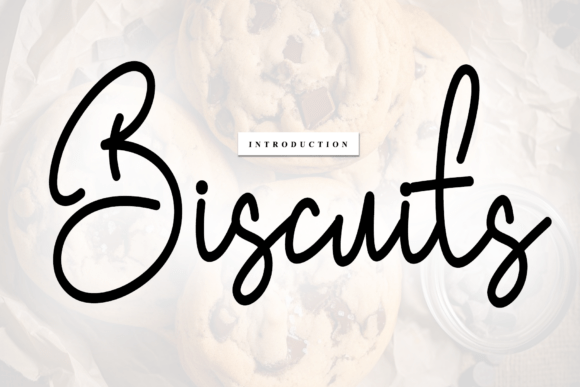
The Sweet Spot: Discovering the Charm of Biscuits Font
I still remember the design project that led me to discover the Biscuits font. I was working on a branding project for a local bakery, and I was struggling to find the perfect font that would capture the warmth and artisanal feel of their freshly baked goods. The client wanted a font that would evoke a sense of handmade craftsmanship, but still look sophisticated and elegant. After hours of searching, I stumbled upon Biscuits, and it was love at first sight. The sweeping, looping ascenders and the warm, organic aesthetic instantly resonated with the bakery’s brand identity.
What I Love About Biscuits Font
• ✨ Sophisticated and rhythmic script font that exudes elegance
• ✅ Perfect blend of calligraphic style and warm, organic aesthetic
• 🎨 Highly versatile and suitable for various design projects, from artisanal food branding to upscale lifestyle marketing
• 💡 Excellent for creating customized, artisanal artistry
While Biscuits font is an excellent choice for many design projects, there are a few quirks to be aware of:
• ⚠️ Some users have reported issues with kerning, particularly with certain letter combinations.
• 🤔 The font’s looping ascenders can sometimes make it challenging to read at smaller font sizes.
The Story Behind Biscuits Font
Biscuits font was designed with the intention of capturing the warmth and artisanal feel of handmade craftsmanship. The designer aimed to create a font that would evoke a sense of customized, artisanal artistry, while still looking sophisticated and elegant. The result is a font that’s perfect for artisanal food branding, boutique product packaging, upscale lifestyle marketing, and creative editorial titles.
Q: What is the best use for Biscuits font?
A: Biscuits font is perfect for artisanal food branding, boutique product packaging, upscale lifestyle marketing, and creative editorial titles.
Q: Is Biscuits font suitable for body text?
A: While Biscuits font is beautiful, it’s not ideal for body text due to its looping ascenders and elegant aesthetic. It’s best used for headings, titles, and short paragraphs.